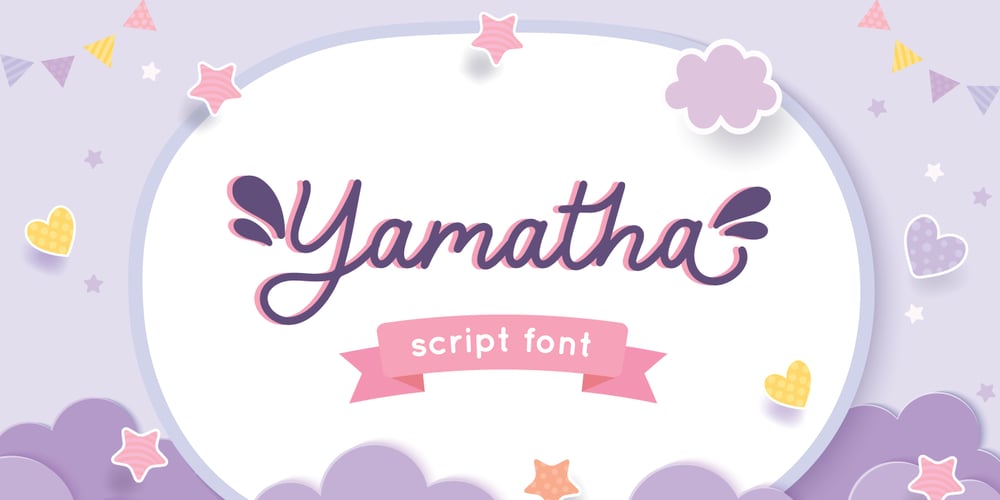
Yamatha Font Family was designed by Fadli Ramadhan Iskandar and published by Attype Studio. Yamatha contains 3 styles and family package options. Yamatha is a script font with swash style perfect for wedding designs.Combine it with Yamatha beginning & ending swash to make your letter more beautiful! Yamatha perfect for wedding promotion, branding, logo, invitation, stationery, social media post, product packaging, merchandise, blog design, game titles, cute style design, Book/Cover Title and more.What’s Included :- Yamatha Family Font- Ligatures- Multilingual Support – Made it into separated file to make it easier to use by beginner & separated file user can use the font with software which doesn’t accept open type features.—Hope you enjoy with our font!Attype Studio